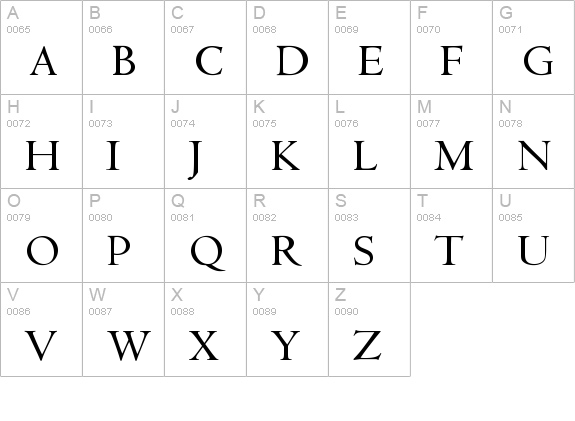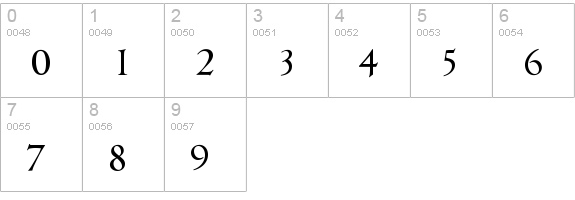
Cambridge-Regular Font Details
Cambridge-Regular is the standard, neutral variant in the Cambridge typeface family \xE2\x80\x94 well suited to general body text, paragraphs, and standard typographic work.
Cambridge-Regular is a classic and elegant font that exudes sophistication and refinement. With its timeless appeal and clean lines, this font is perfect for a wide range of design projects, from invitations to branding to editorial layouts. The versatility of Cambridge-Regular makes it a go-to choice for designers looking to add a touch of class to their work. The best part? Cambridge-Regular is available for free download at FontsMarket.com. This means you can add this beautiful font to your collection without any cost, making it a valuable asset for any designer or enthusiast. Don't miss out on the opportunity to enhance your projects with the timeless elegance of Cambridge-Regular – download it today and elevate your design game!